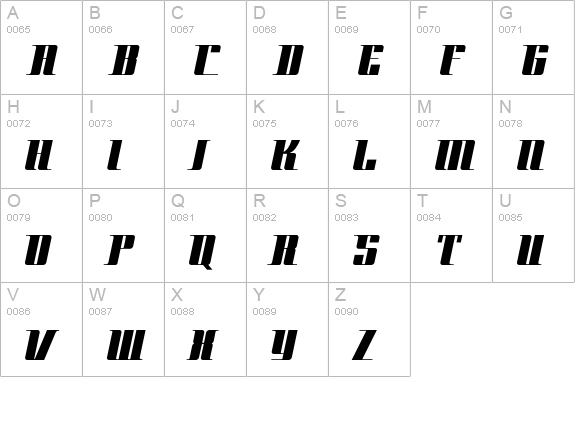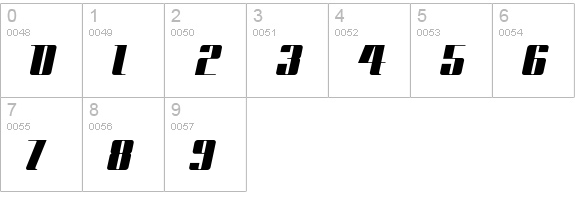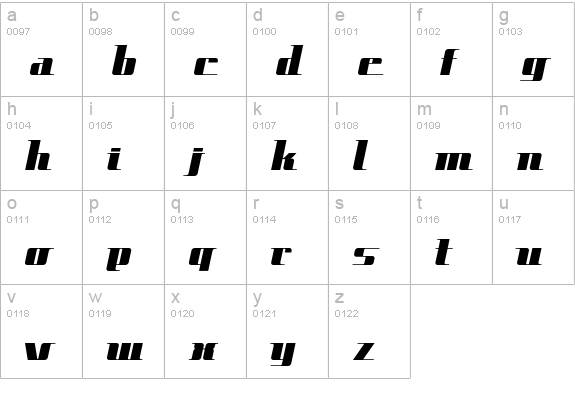
SpaceCadet Font Details
Introducing SpaceCadet font, a bold and futuristic typeface that will propel your designs into the vast reaches of the unknown. With its sleek lines and captivating curves, this font exudes an otherworldly charm that is sure to captivate your audience. SpaceCadet font is a perfect blend of modernity and innovation, making it the ideal choice for projects that require a touch of cosmic elegance. Whether you're designing a poster for a sci-fi movie, creating a captivating logo for a tech startup, or crafting a mesmerizing website, this font will transport your viewers to galaxies far, far away. But what sets SpaceCadet font apart from the rest? Well, it's not just its stunning aesthetics. It's also the fact that it is absolutely free! That's right, you can download this remarkable font without spending a single penny. Imagine the possibilities that open up when you have access to such a stellar typeface at no cost. To get your hands on SpaceCadet font, simply head over to FontsMarket.com. There, you'll find a vast library of fonts, including this gem. With just a few clicks, you can download SpaceCadet font and start creating designs that are truly out of this world. So why wait? Unleash your creativity and embrace the cosmic with SpaceCadet font. It's time to break free from the constraints of ordinary typography and embark on a typographic journey that will leave your audience in awe. Download SpaceCadet font today and let your designs defy gravity.